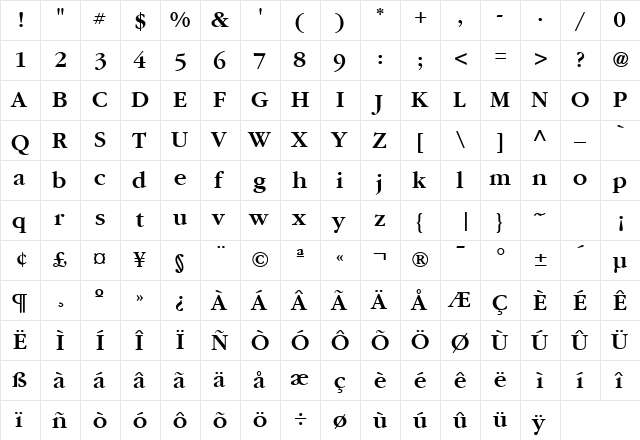
GarryMondrian5 SBldSH
Design Context for GarryMondrian5 Typeface
GarryMondrian5 takes a measured approach to typography — its balanced proportions and neutral character make it a reliable workhorse for both digital and print work.